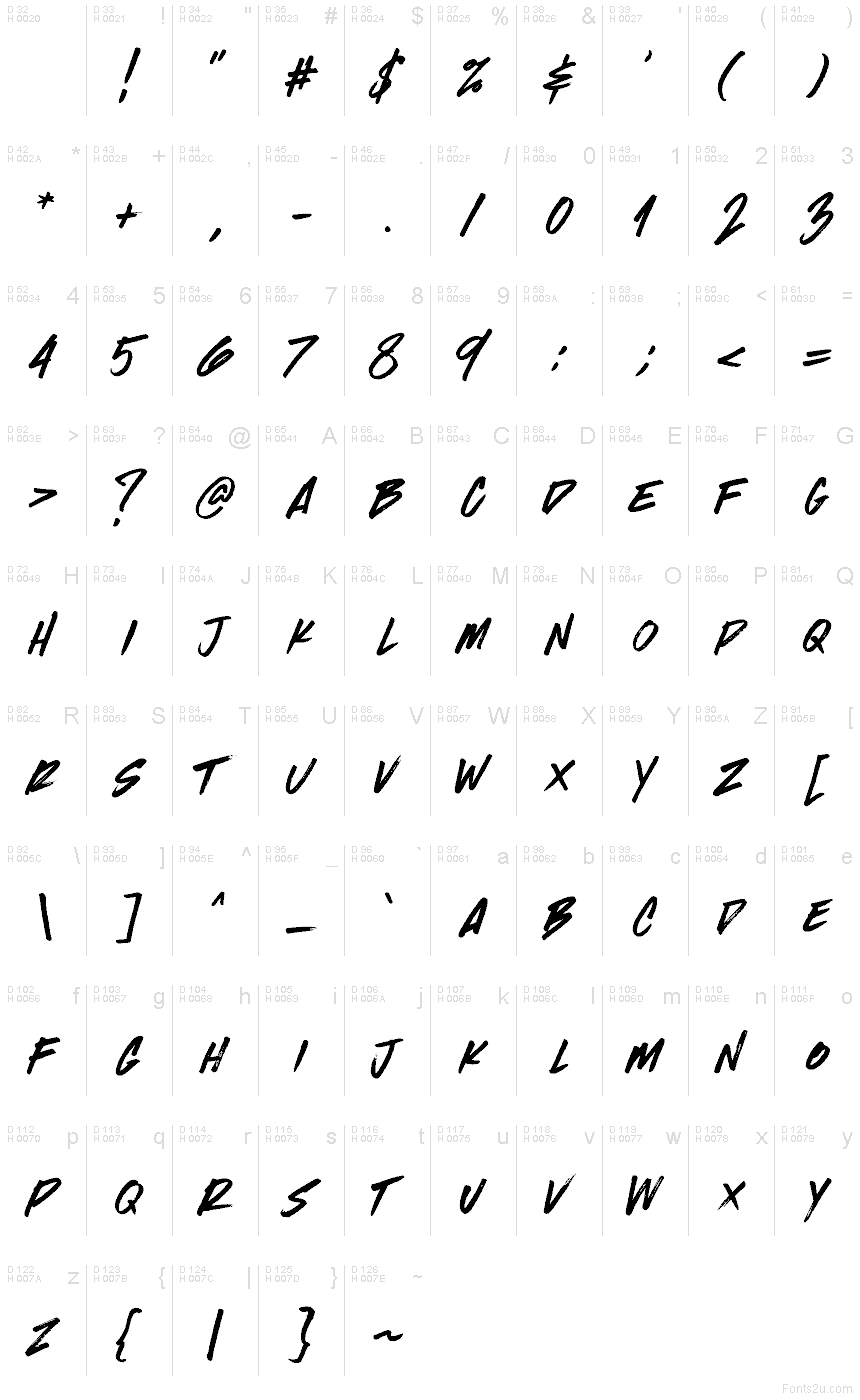
Brickflare
Brickflare font is a sporty, energetic typeface by Riyadh Rahman with an impactful presence. Its condensed letters add a contemporary, expressive touch to the font’s overall appearance. Enjoy Brickflare’s written strokes that will inspire you to include it in your next innovative creation.
This free brush handwritten font suits posters and signs, branding and packaging designs, invitation cards or diary entries. Use it online in social media pages or with printed products and projects. Websites, business cards, ads and banners can also benefit from Brickflare’s sporting energy!